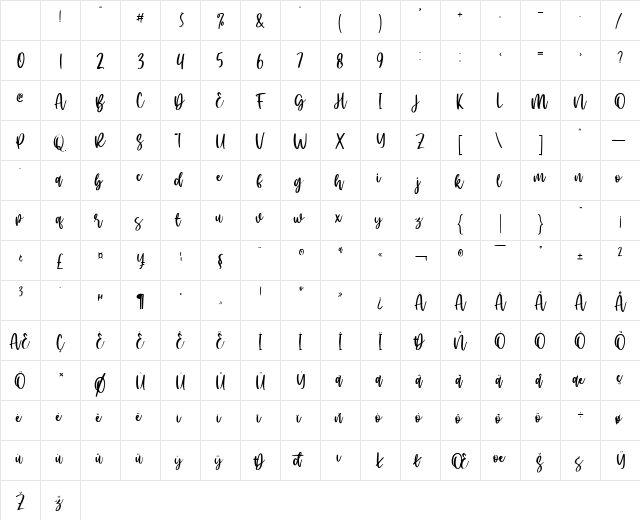
Complete sacred Love Regular glyph index. Displaying only characters natively supported by sacred Love Regular font.
sacred Love is a composed and adaptable typeface that performs quietly and consistently across a wide range of design contexts.